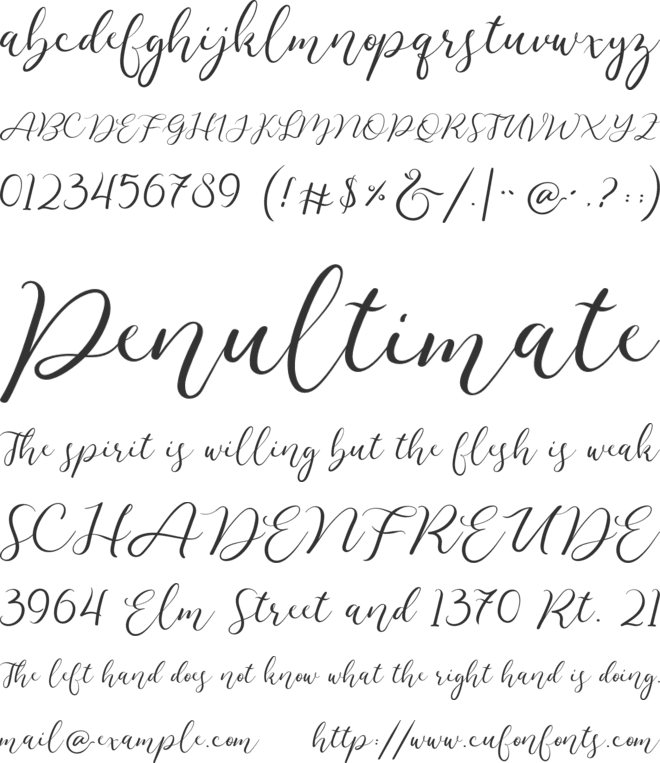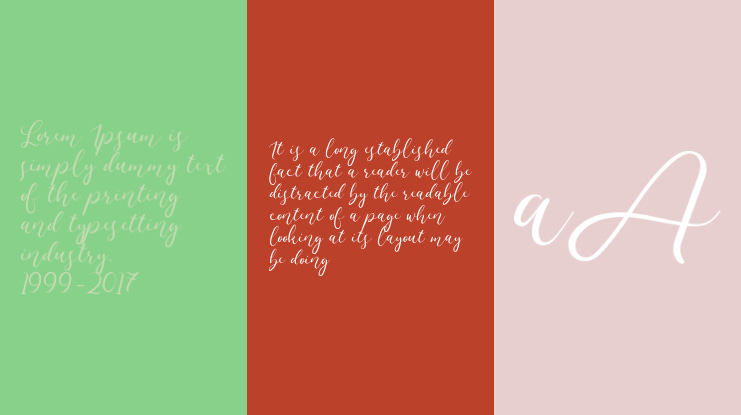
Bali Sunrise Font
Bali Sunrise is a beauty script and elegant typeface inspired by the design of aesthetic on hotel and resorts. You can make a perfect combination ease. This beauty typeface is really perfect for logotype, banner, t-shirt, cards, cover youtube, branding, packaging, quote etc.